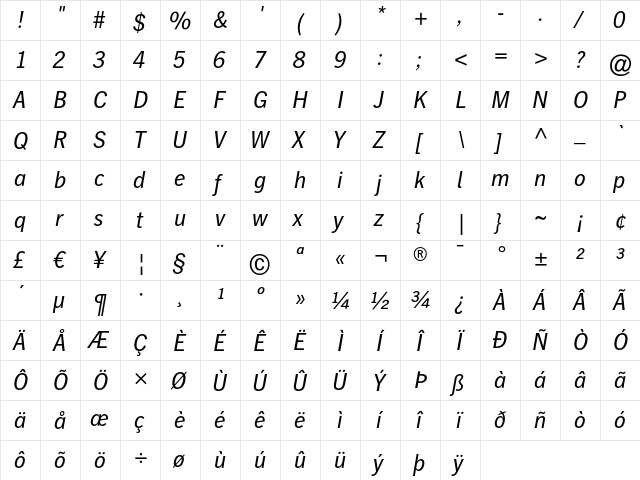
HeidelbergGothicTab Italic
HeidelbergGothicTab has the quiet confidence of well-executed sans-serif typography: versatile, unobtrusive, and dependable at any size. Its italic angle brings a sense of urgency and motion to the letterforms.
Font Pairing: Works well alongside a characterful serif or display font that can carry the expressive load while HeidelbergGothicTab handles the functional copy.
Pro Tip: Pair HeidelbergGothicTab with a display or serif font for headlines — its neutral character makes it an excellent supporting player in complex typographic systems.